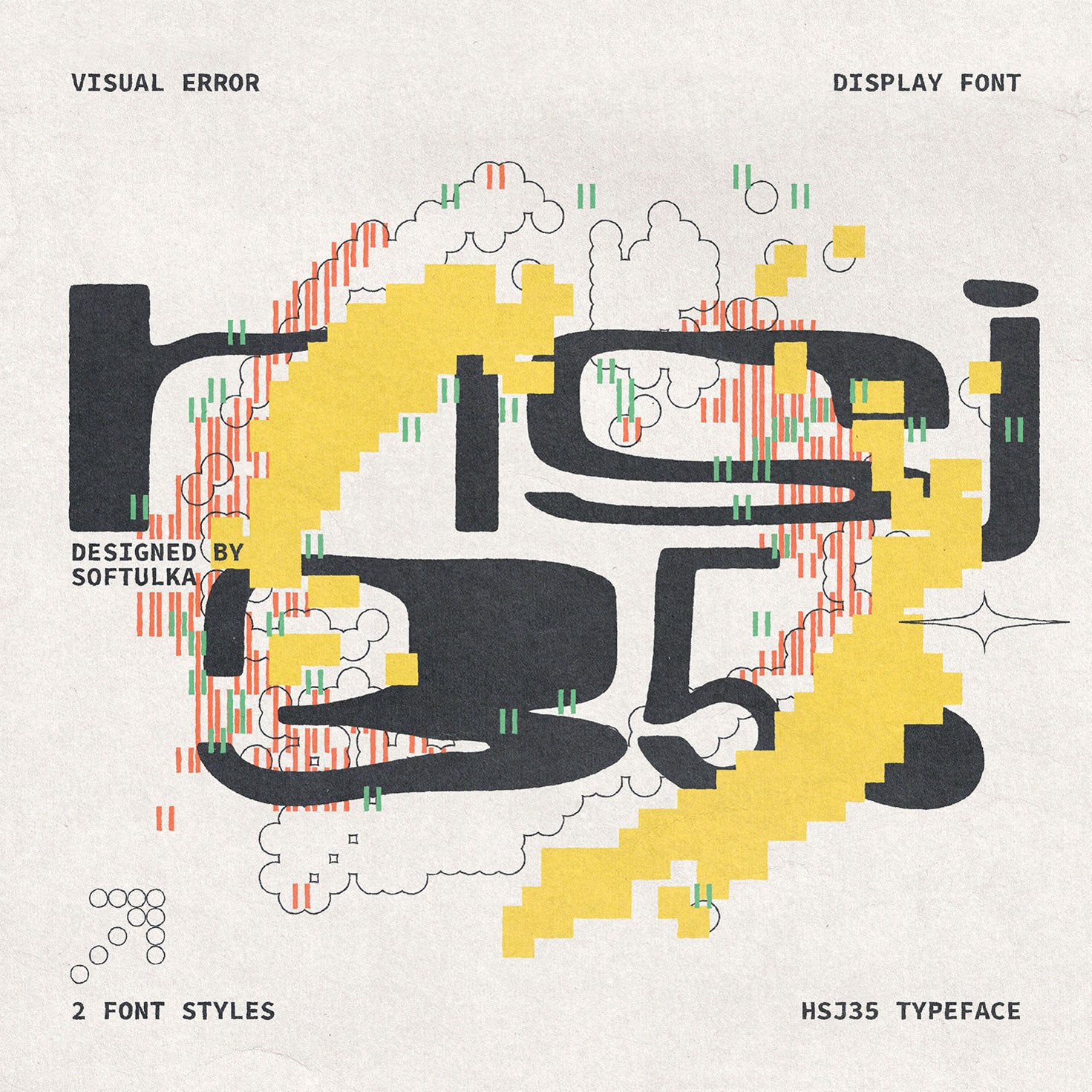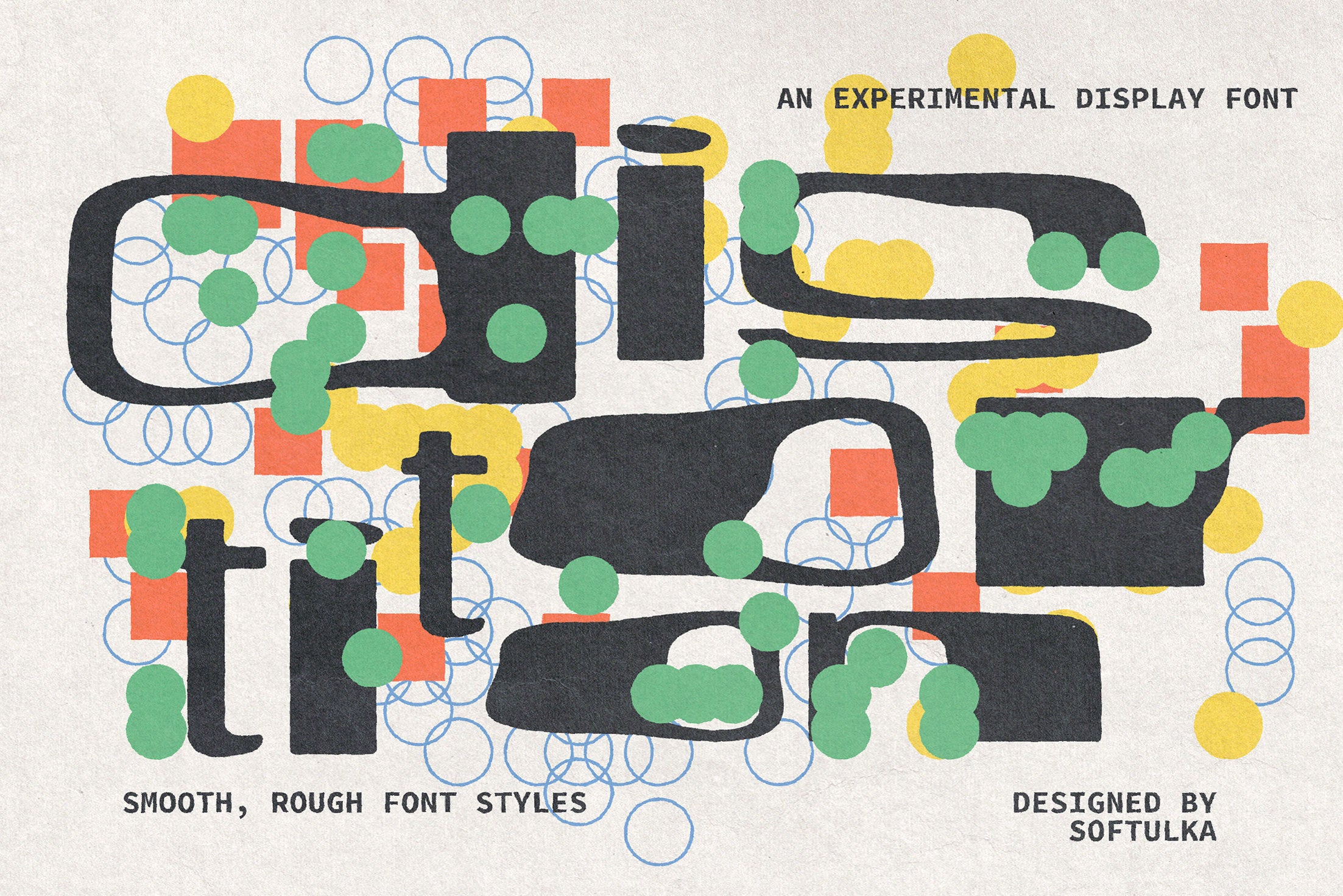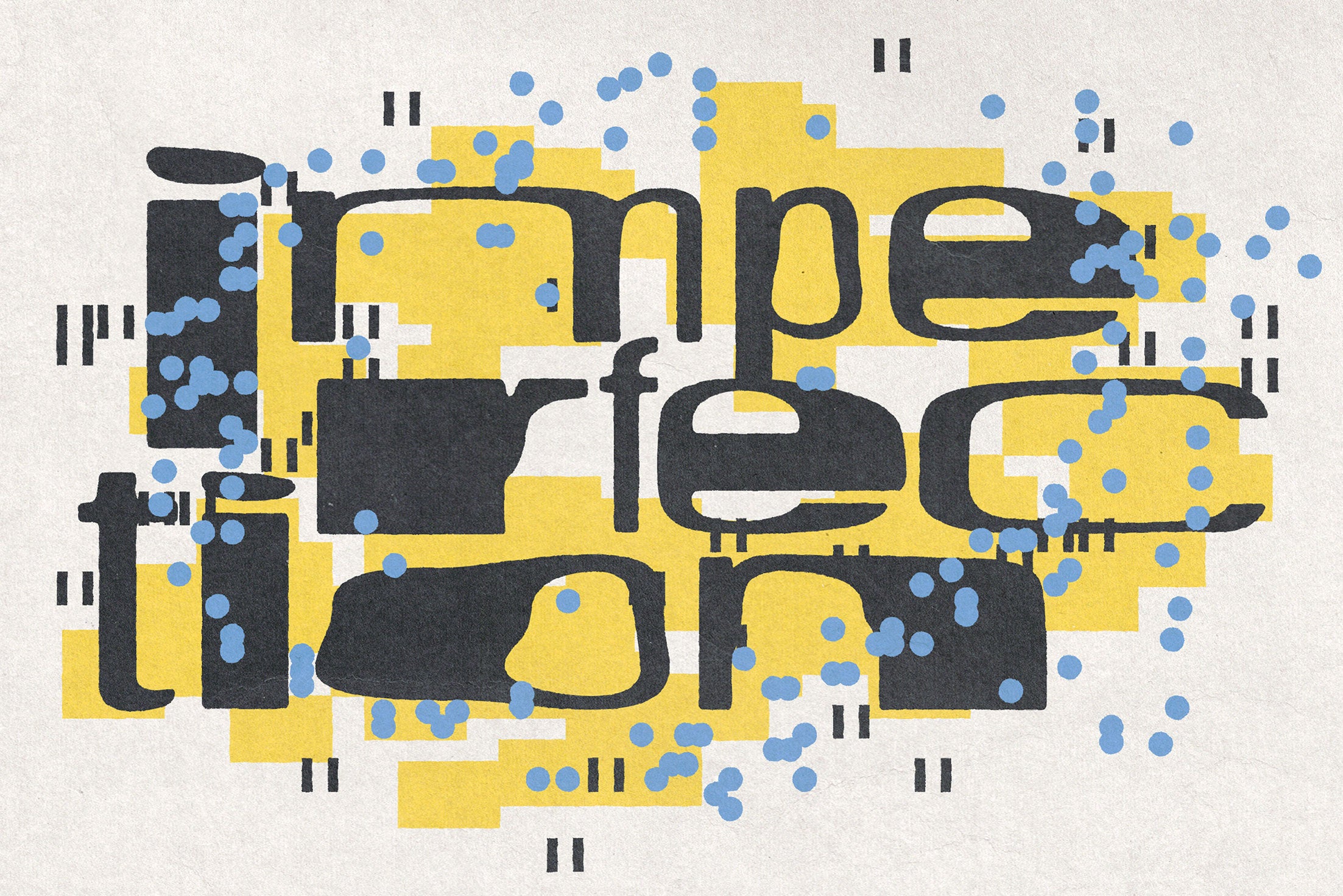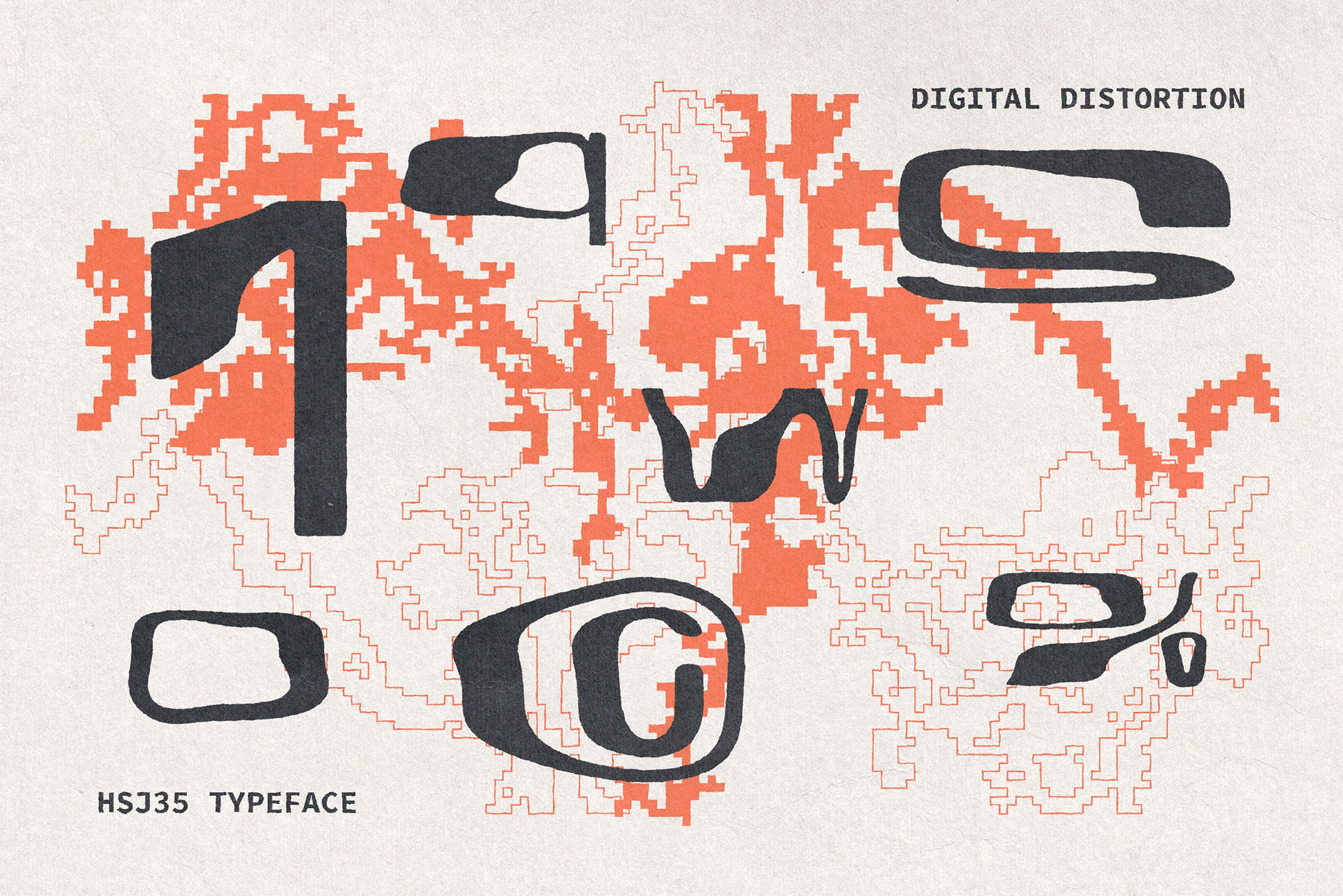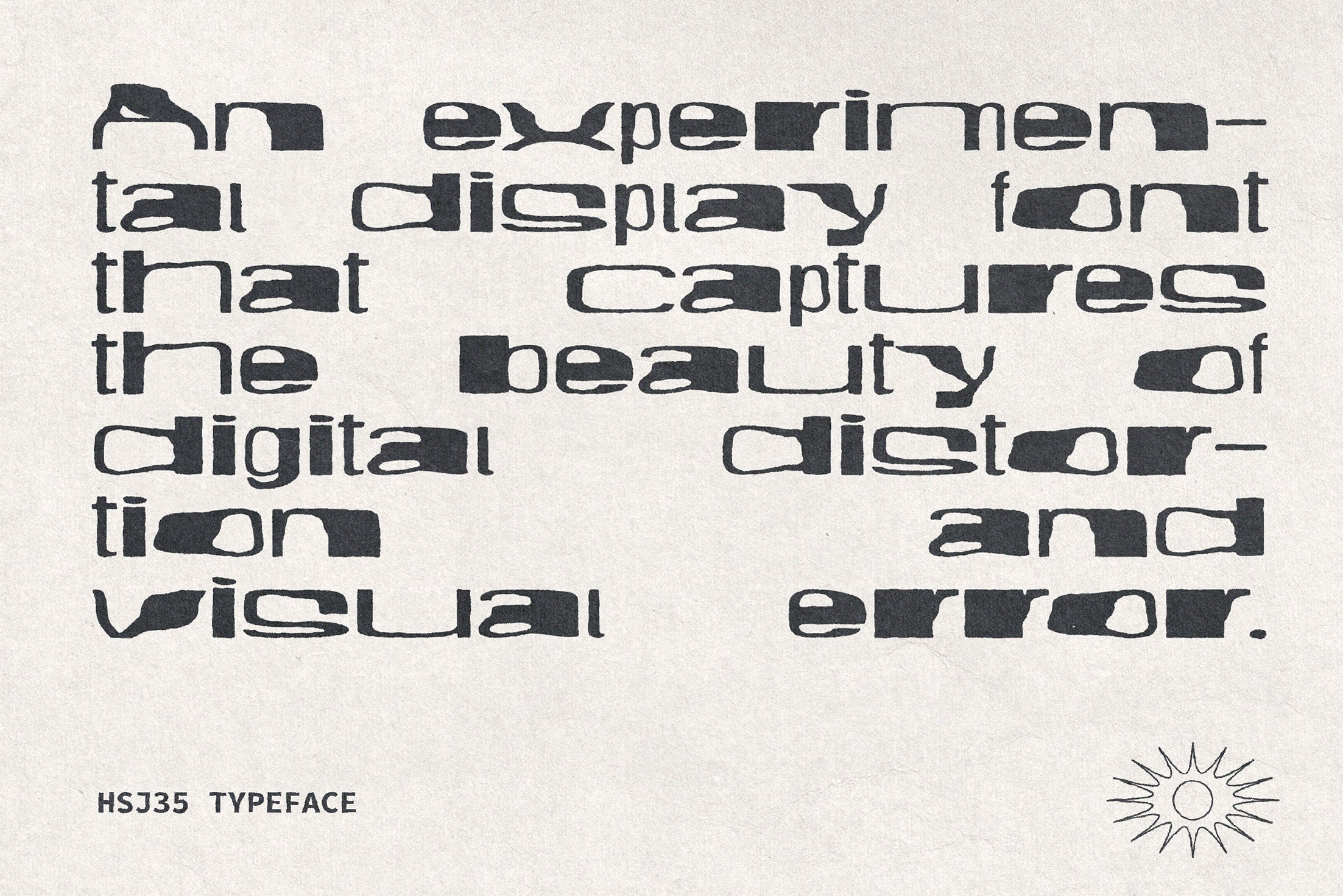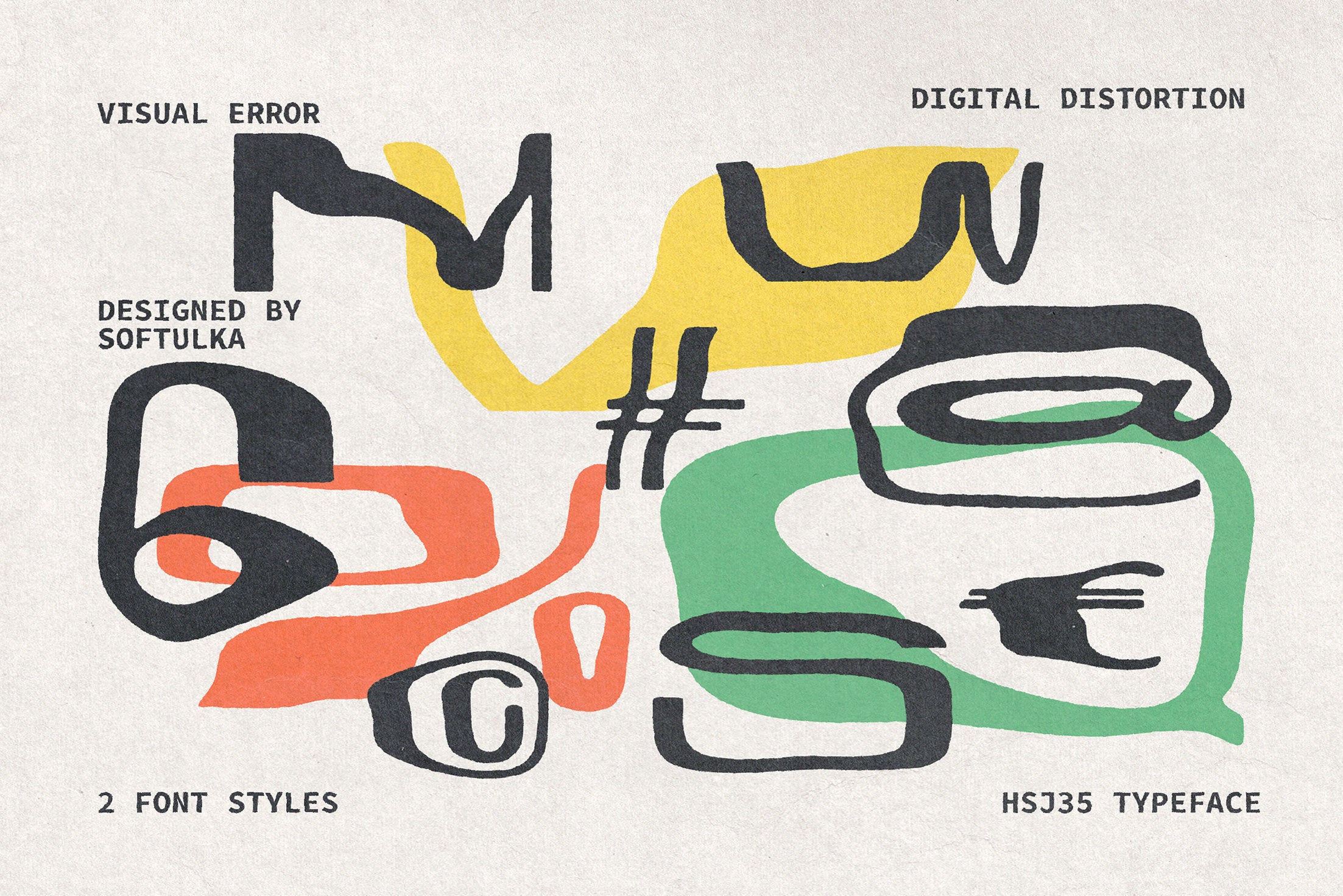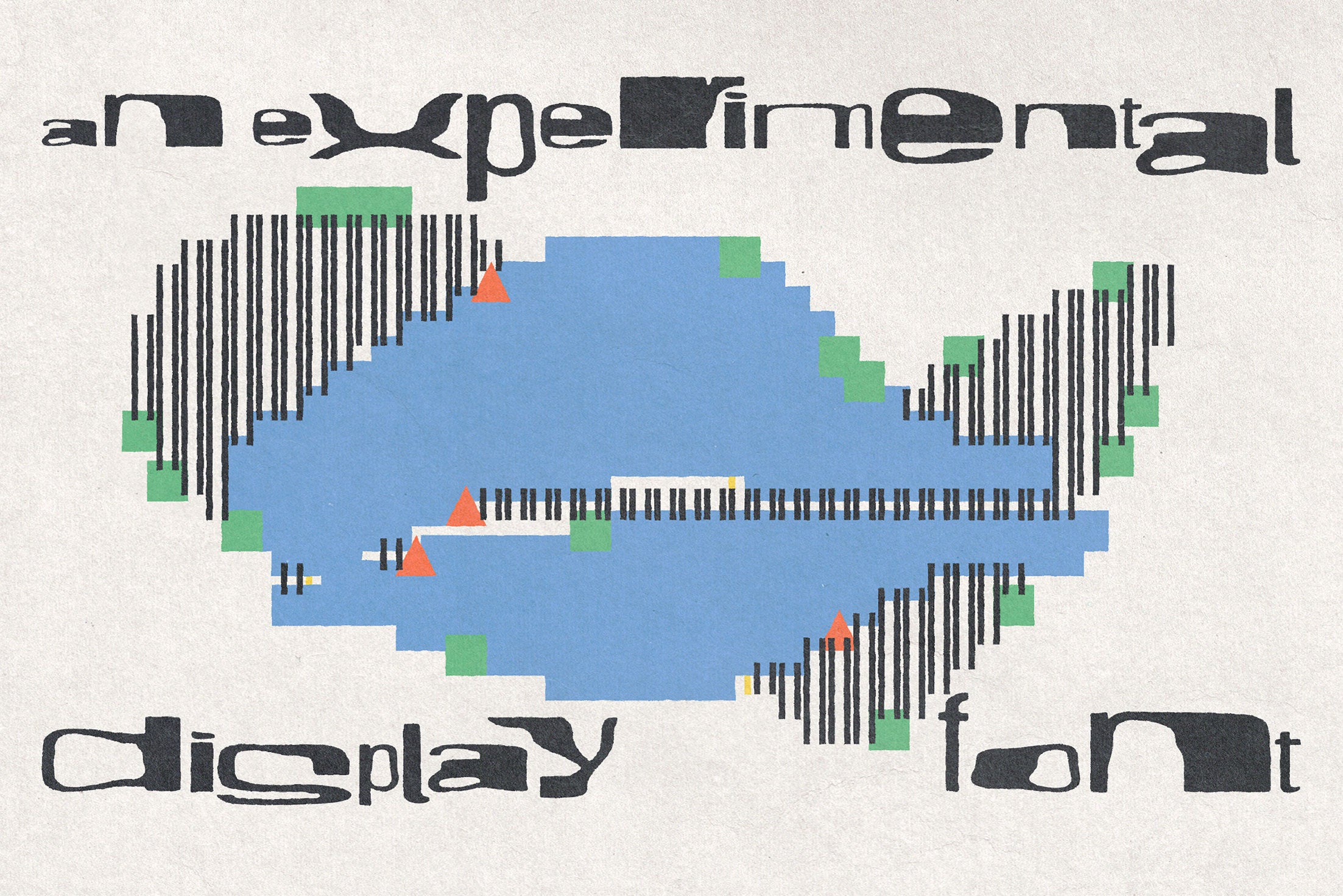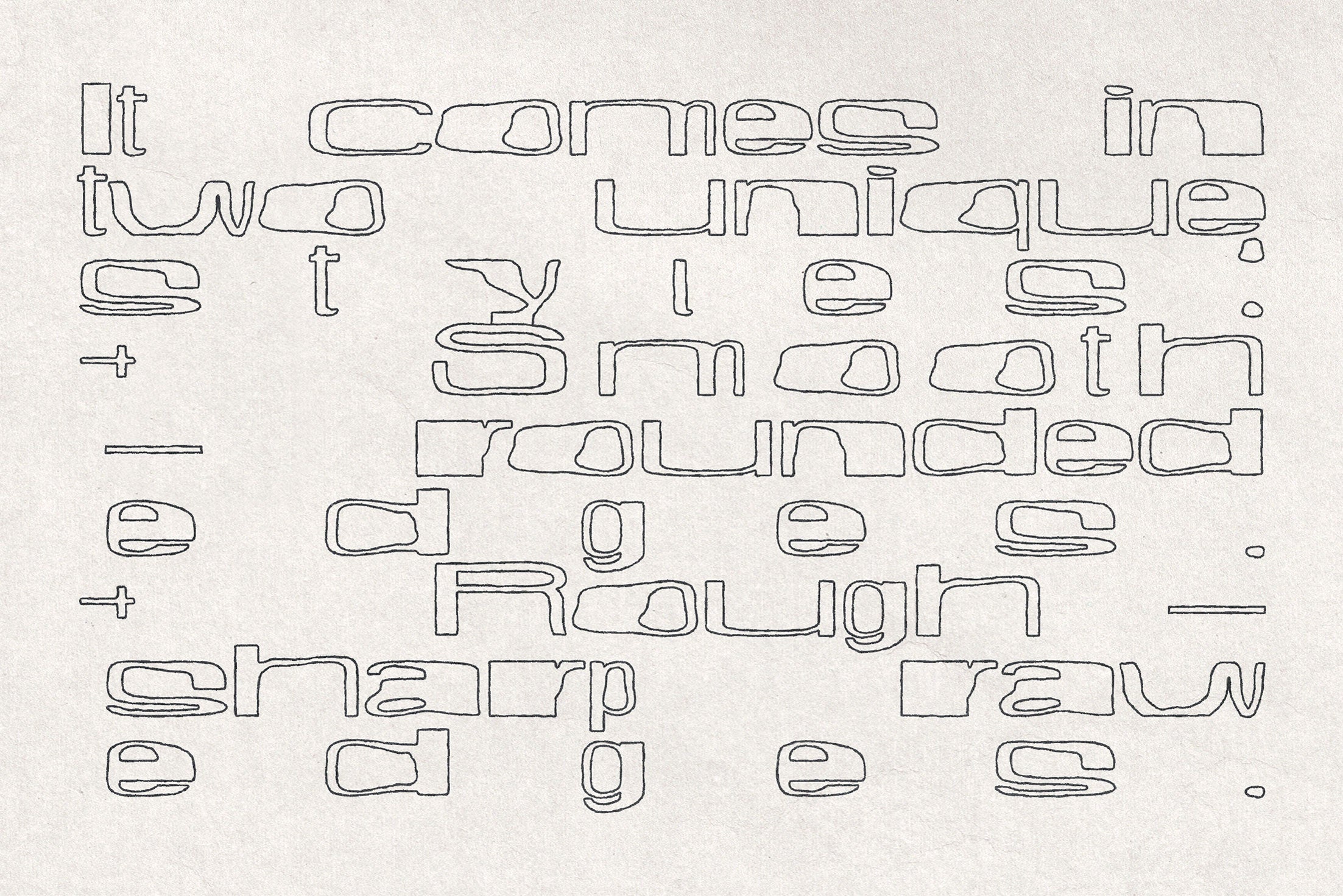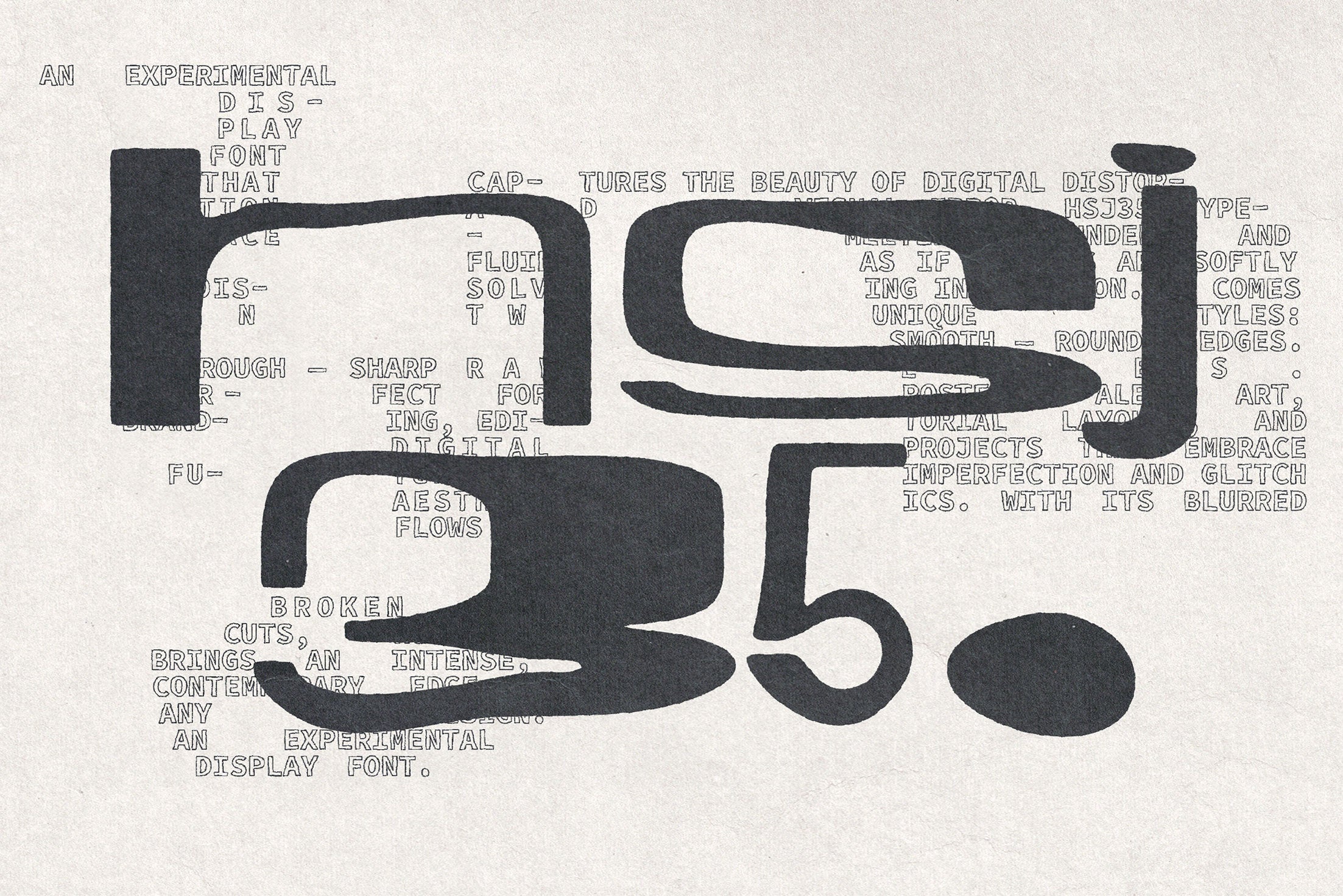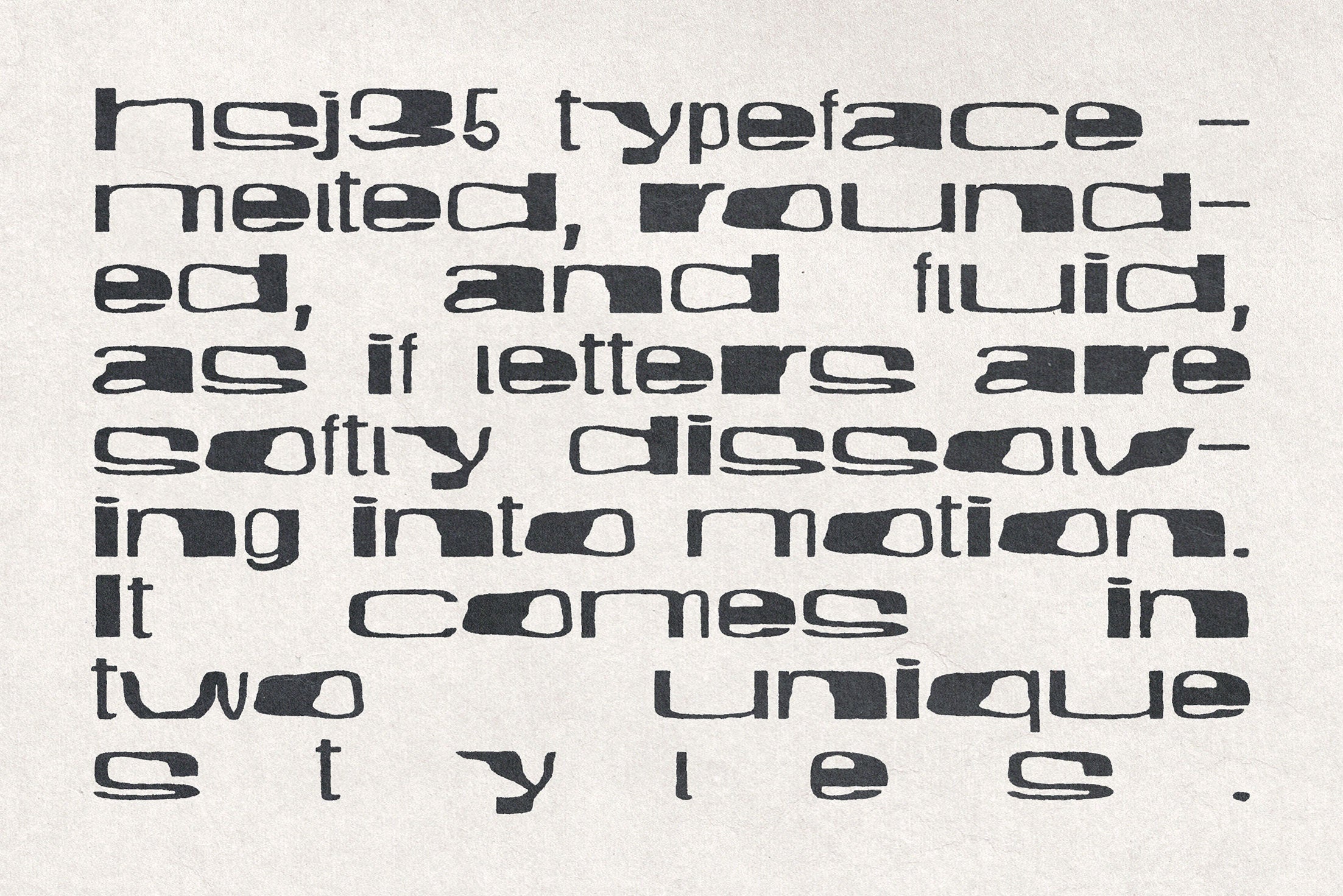
hsj35 typeface
An experimental display font that captures the beauty of digital distortion and visual error. hsj35 typeface - melted, rounded, and fluid, as if letters are softly dissolving into motion. It comes in two unique styles:
- Smooth — rounded edges.
- Rough — sharp raw edges.
Perfect for posters, album art, branding, editorial layouts, and digital projects that embrace futuristic imperfection and glitch aesthetics. With its blurred flows and broken cuts, hsj35 brings an intense, contemporary edge to any design.